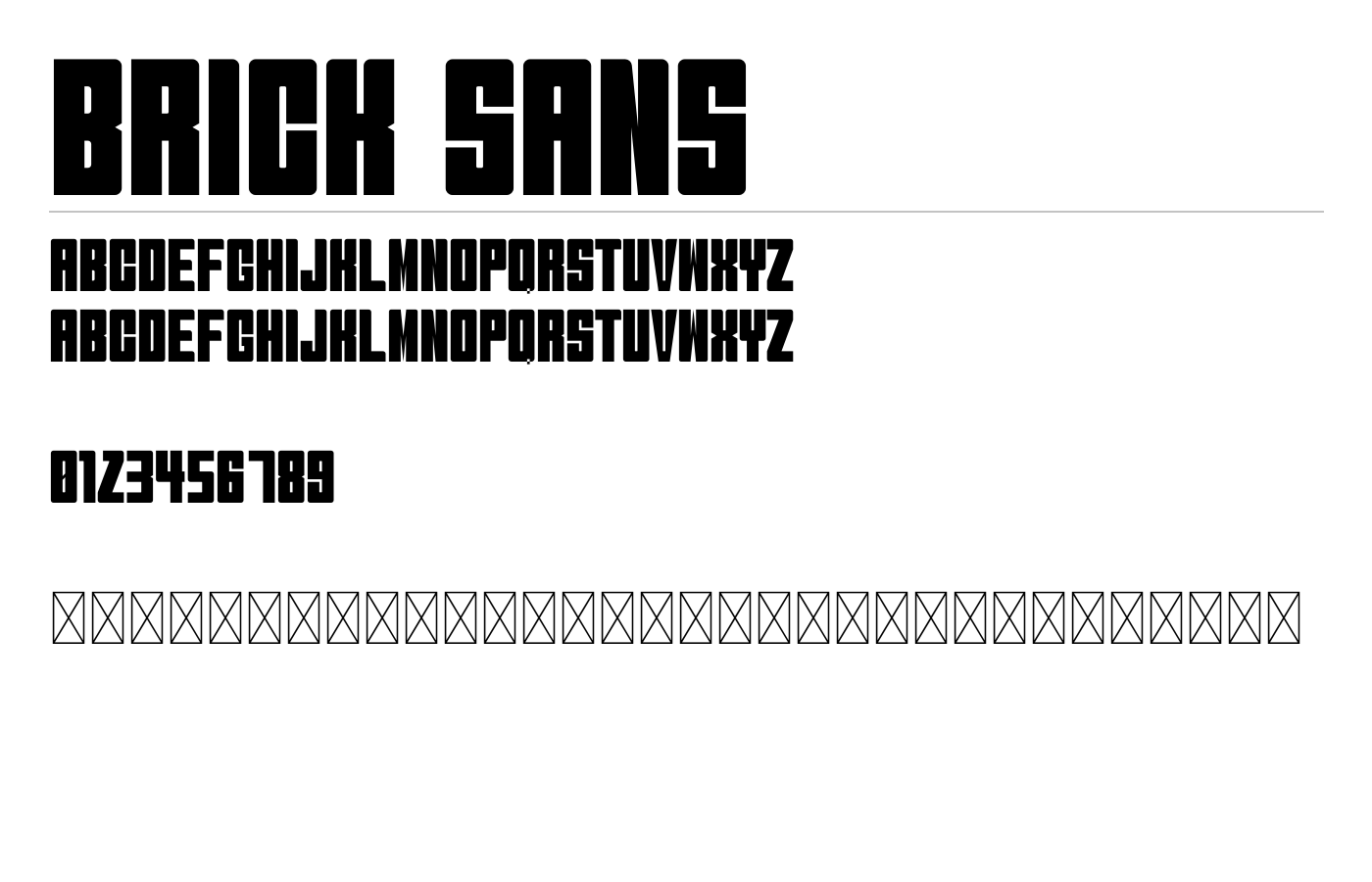
Brick Sans is a bold, condensed sans serif font with a strong, solid presence reminiscent of sturdy bricks. Its uniform stroke weight, squared edges, and high x-height give it a modern, industrial feel that commands attention, making it ideal for impactful headlines, logos, and branding that need a confident and assertive look. This font works best where a bold statement is needed, especially in design contexts like posters or packaging that benefit from its blocky, powerful style.
Brick Sans Font